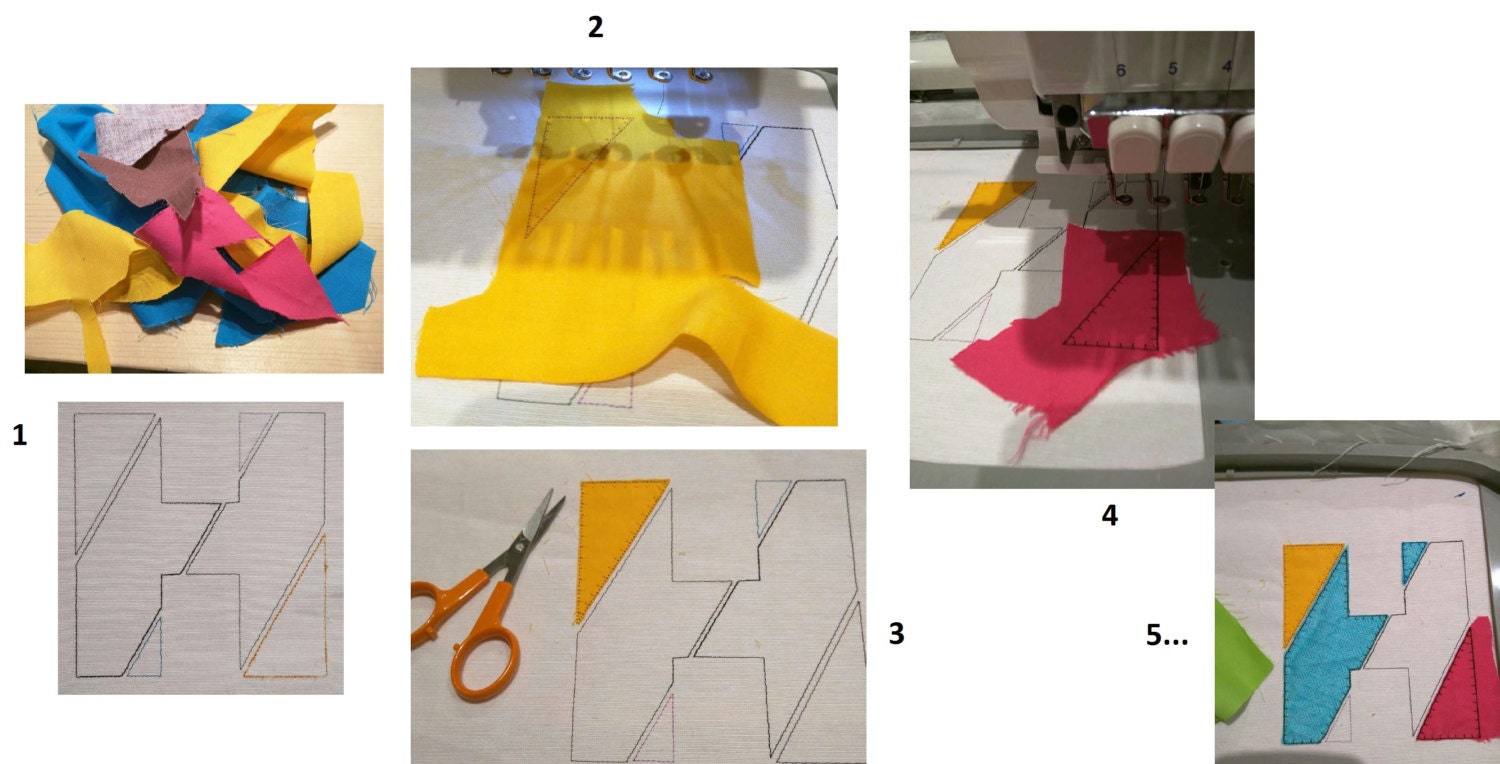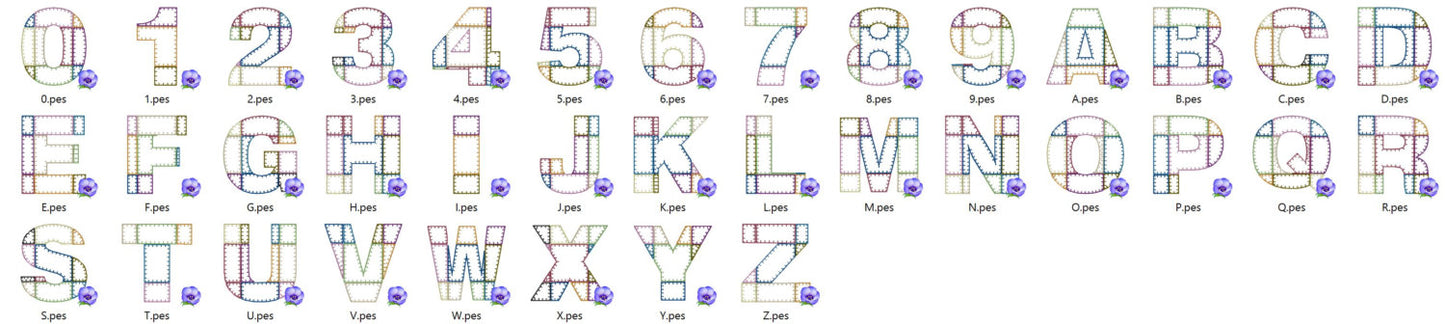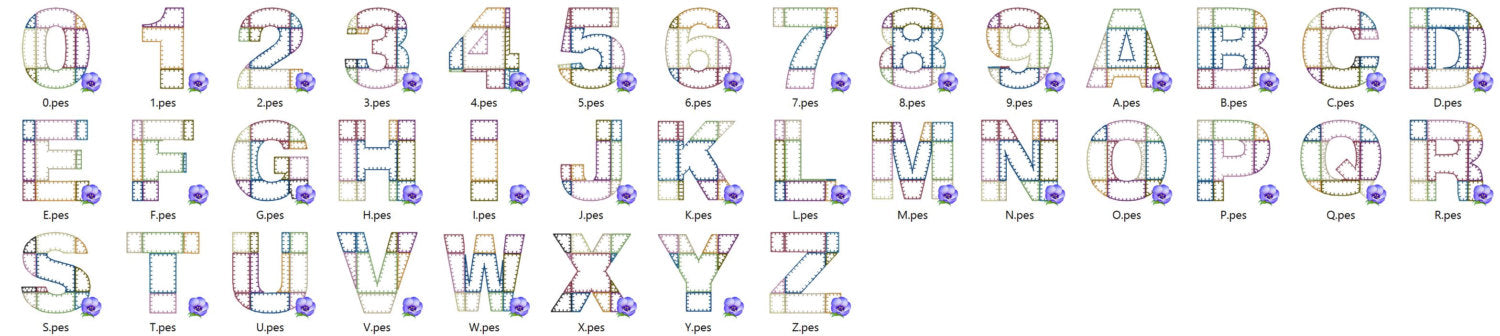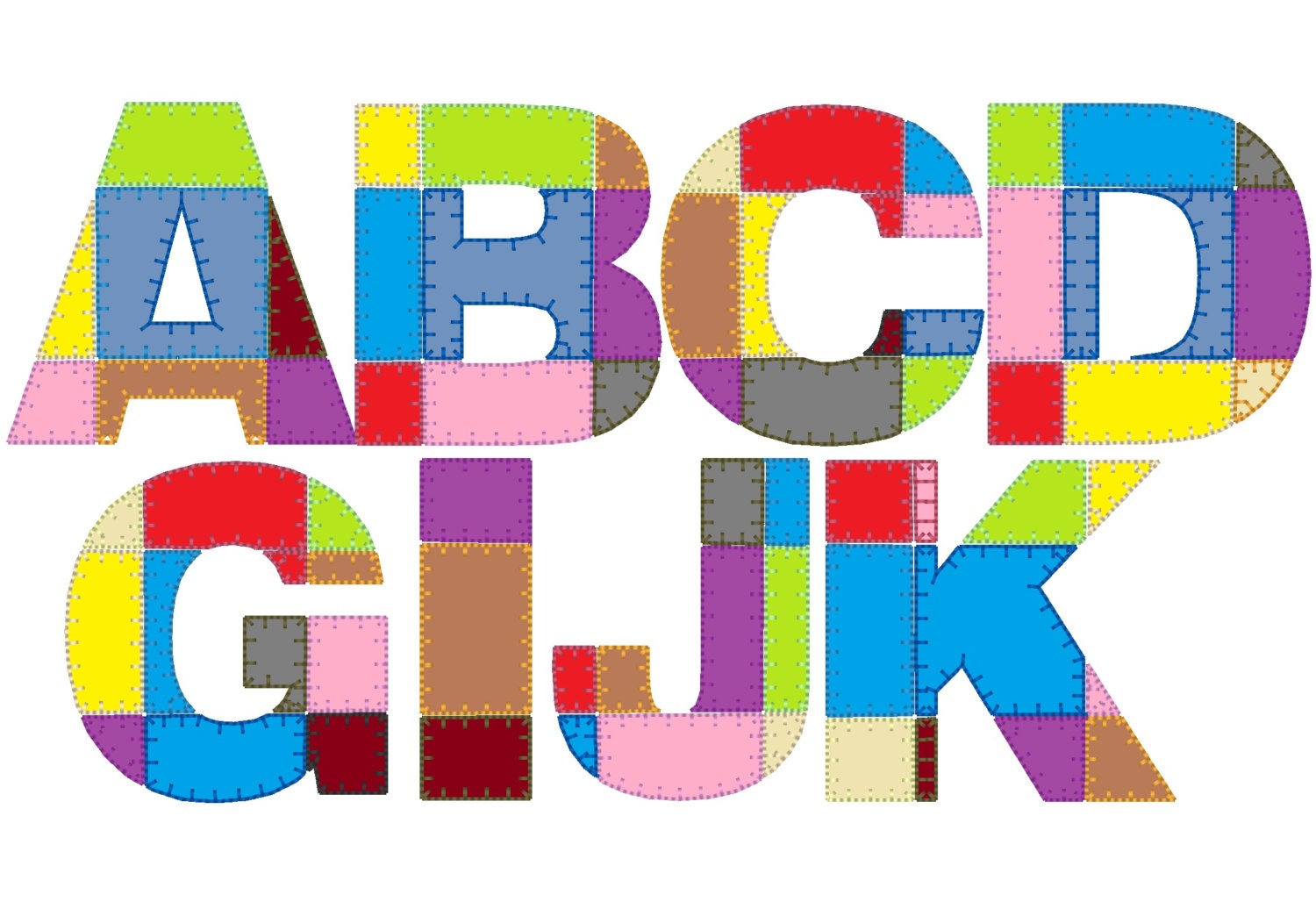
Or click to open the linkA patchwork applique font with a grid of fabric pieces and raggedy edges. Use up fabric scraps for quilts, birthday shirts and learning materials.
Capital letters A to Z and numbers 0 to 9 in five sizes: 3, 4, 5, 6 and 7 inches. Each section has its own placement line, so you can put a different fabric in every square.